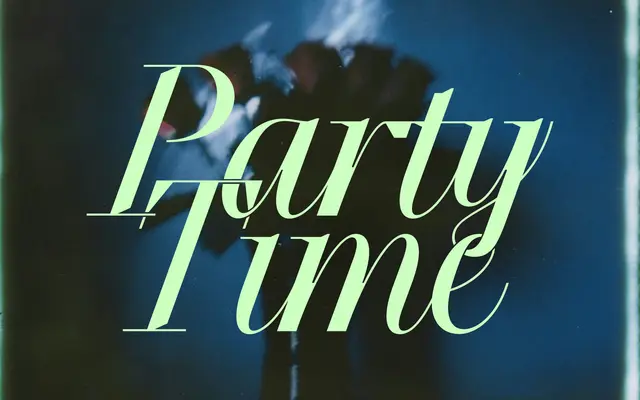
Flint Script
A contemporary script with a single regular weight that plays elegant curves against short angular strokes.
Flint Script is a single-weight contemporary script that sits between calligraphic warmth and geometric restraint, with the foundry citing tension between curves and angles as its defining quality. Six stylistic sets offer meaningful alternate forms across a broad range of characters, extending its usefulness across different design contexts. Latin coverage is thorough, reaching into Extended-A and diacritical marks for broad European language support.
Classified as script due to its flowing, connected letterforms drawn in a contemporary style; the foundry describes a balance between elegant curves and short angles, characteristic of modern calligraphic scripts.